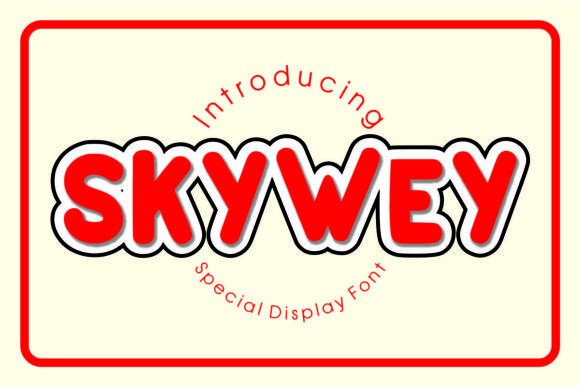
Are you tired of the same old boring fonts? Looking for a font that will truly make your designs stand out? Look no further than Skywey Font, a captivating and eye-catching display font that is perfect for all your industrial design needs.
Created by the talented miftahuliman85, Skywey Font brings a playful and whimsical touch to any project. With its informal and casual style, this font exudes a sense of childlike charm that will instantly capture the attention of your audience. Say goodbye to dull and mundane designs, and say hello to creativity and excitement!
Whether you're working on product packaging, labels, logos, or any other design project, Skywey Font is here to elevate your creations to a whole new level. Its unique and distinctive characters add a touch of personality, making your designs truly one-of-a-kind. Let your imagination run wild and watch as this font breathes life into your visual works.
But Skywey Font is not just about aesthetics. It is also designed with user-friendliness in mind. With its clean and clear letterforms, this font ensures that your message is conveyed effectively and effortlessly. No more struggling to decipher illegible texts – Skywey Font makes reading a breeze, while still maintaining its captivating appeal.